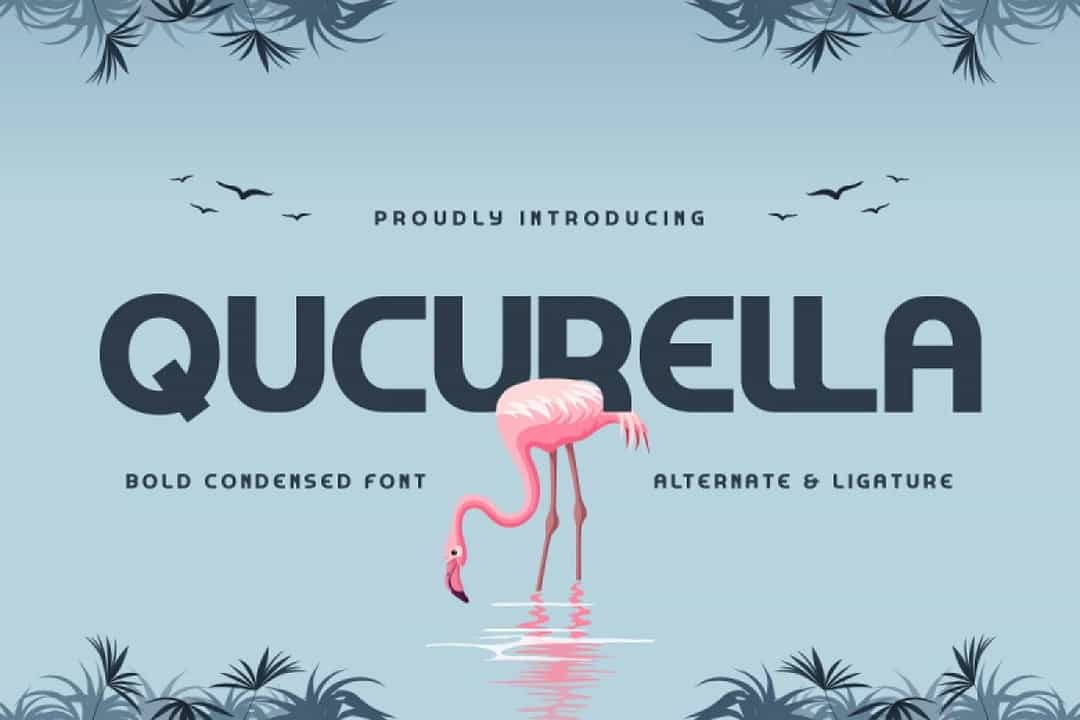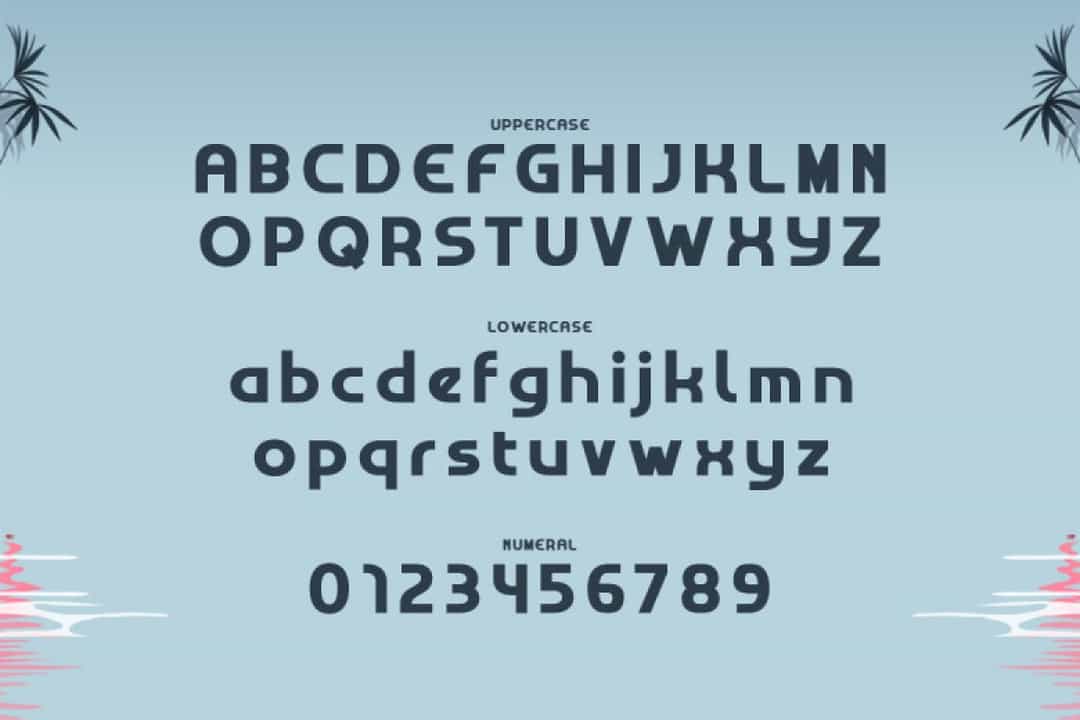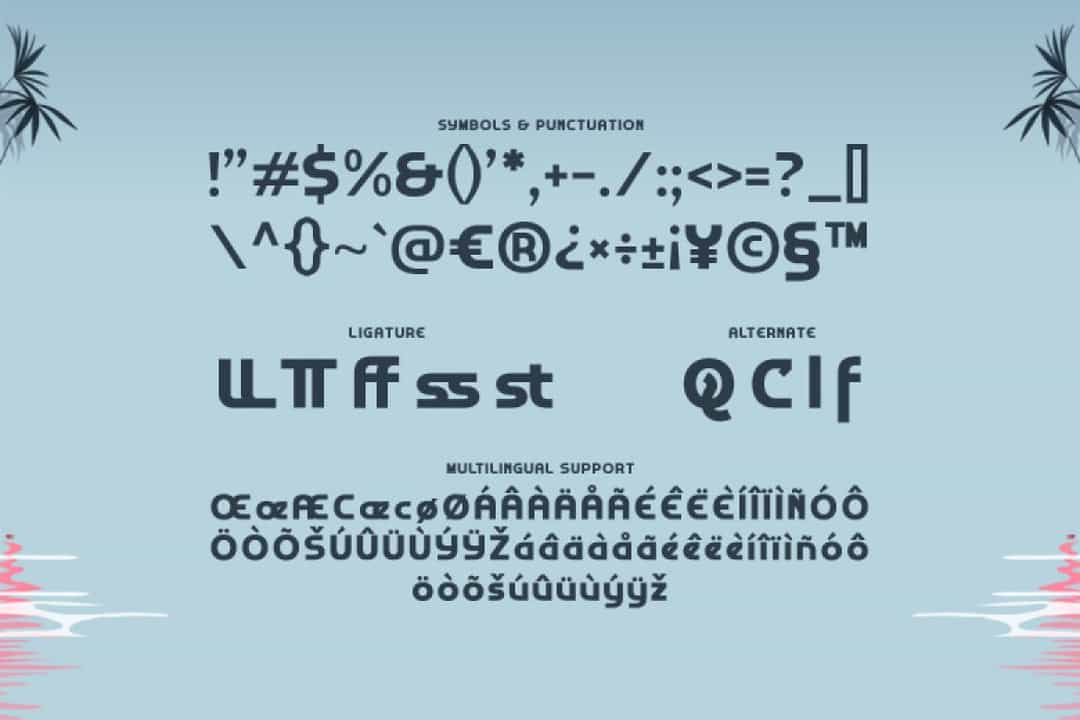
“Qucurella” – an eye-catching condensed sans serif font that leaves an indelible mark! Take pleasure in “Qucurella’s” beautiful variety; its presence adds elegance to your design projects and will no doubt make an impactful statement about them!